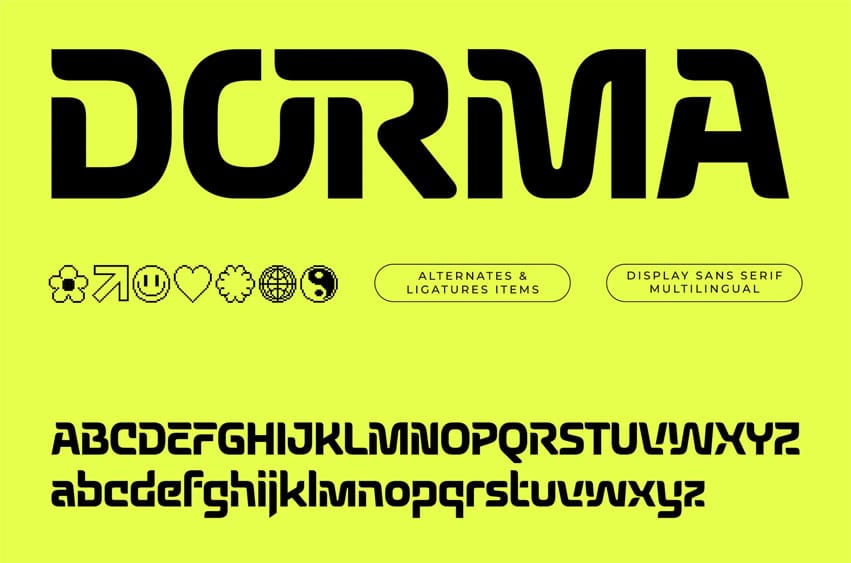
Dorma Font display font is a unique, modern luxury font with a luxury, elegant, aesthetic, and geometric style. It is a display font perfect for branding projects, logos, social media posts, product packaging, labels, etc.